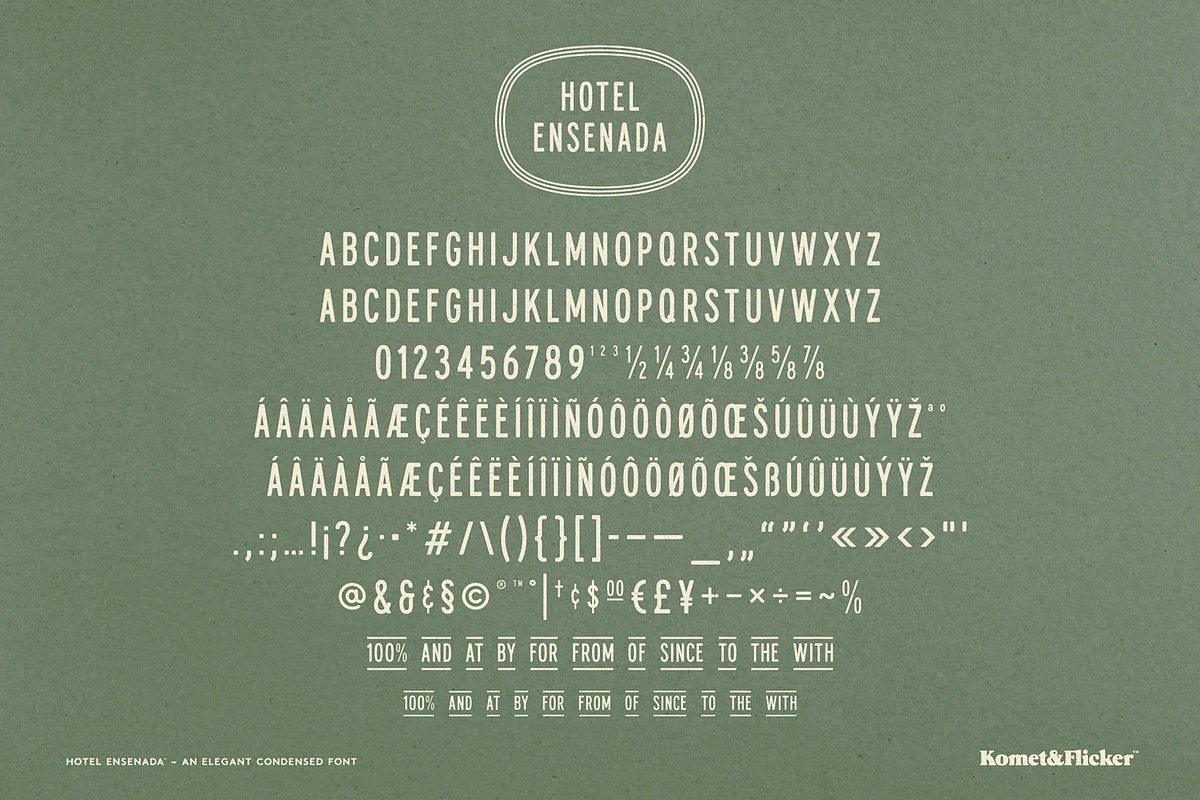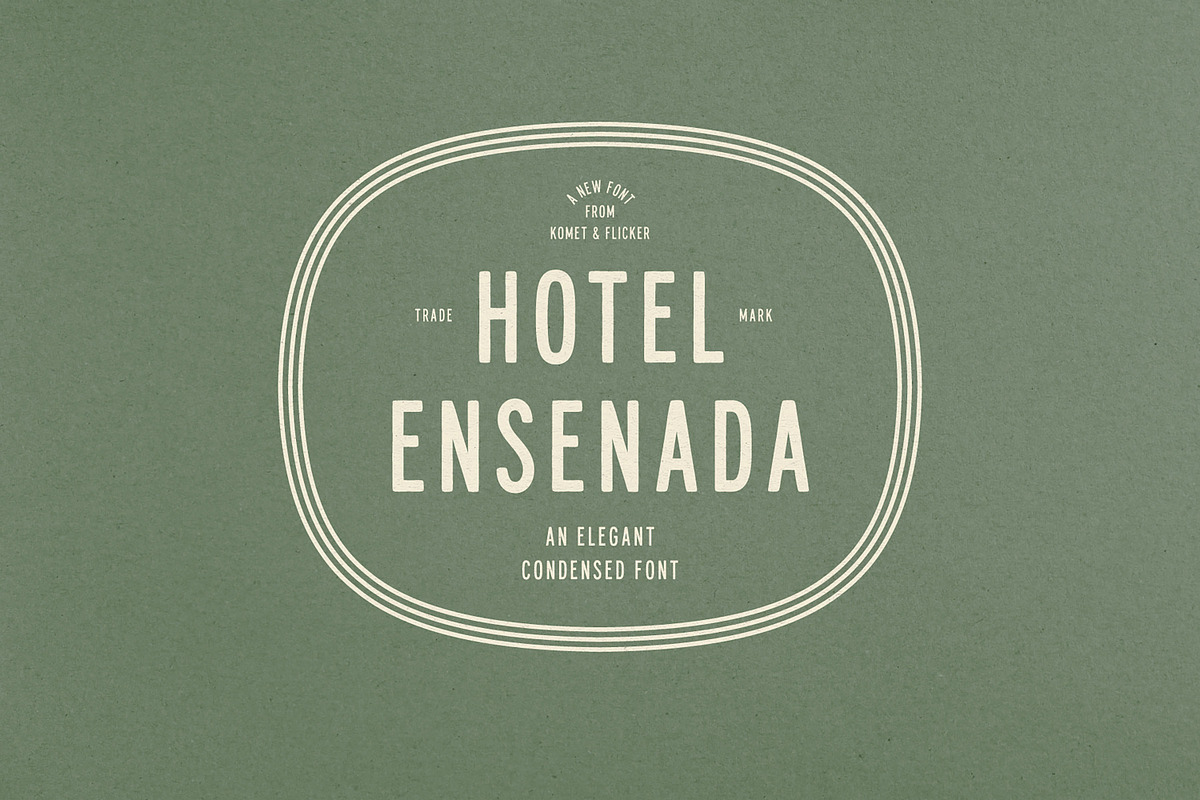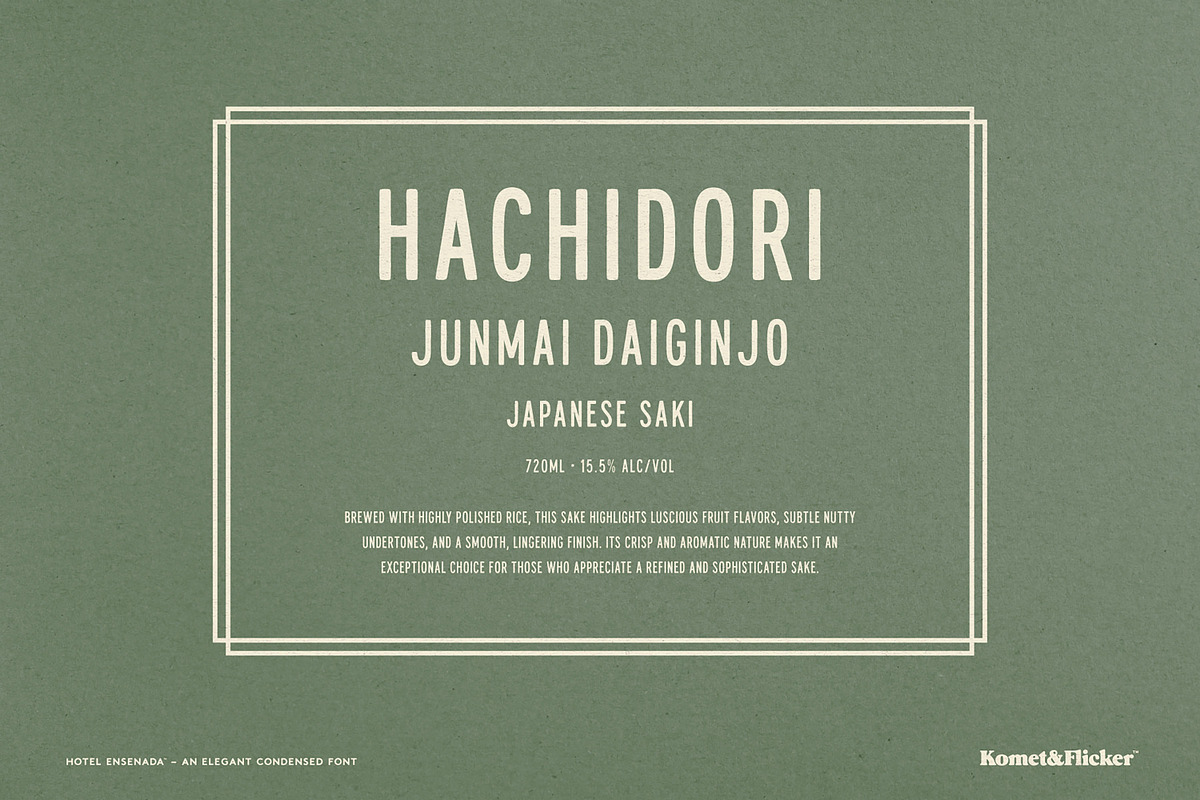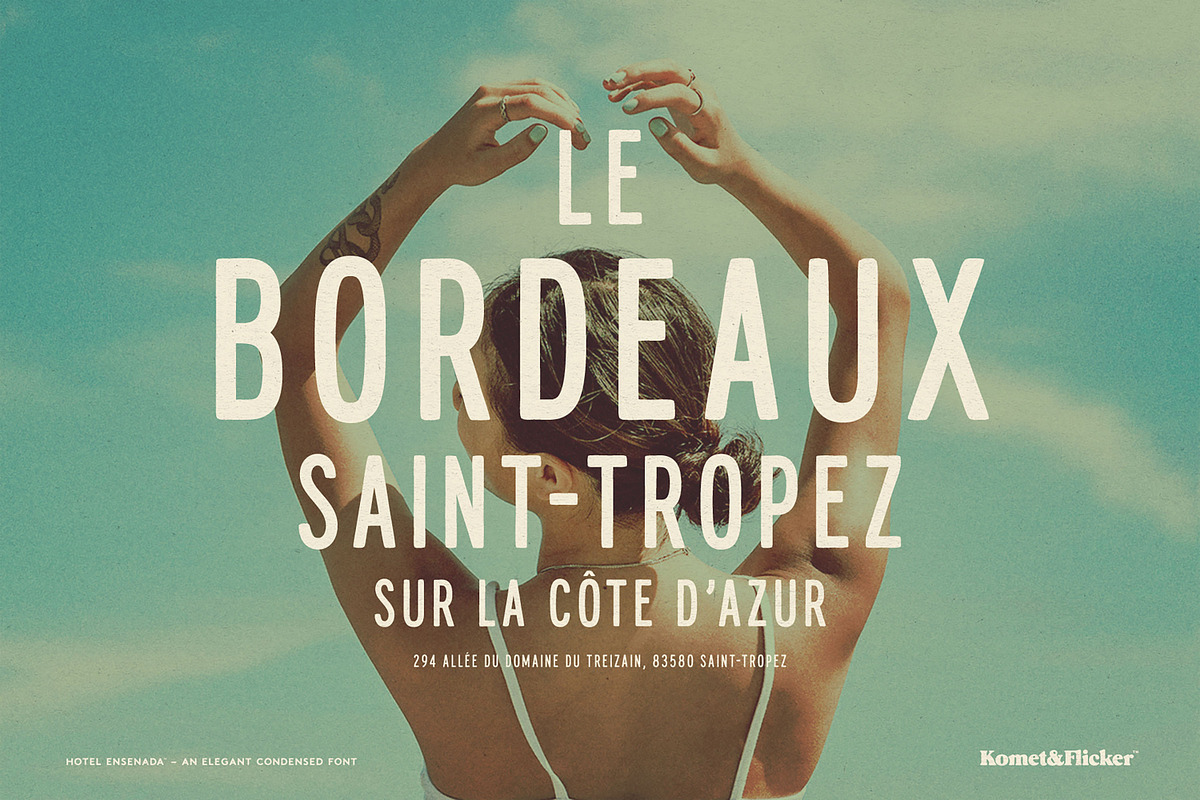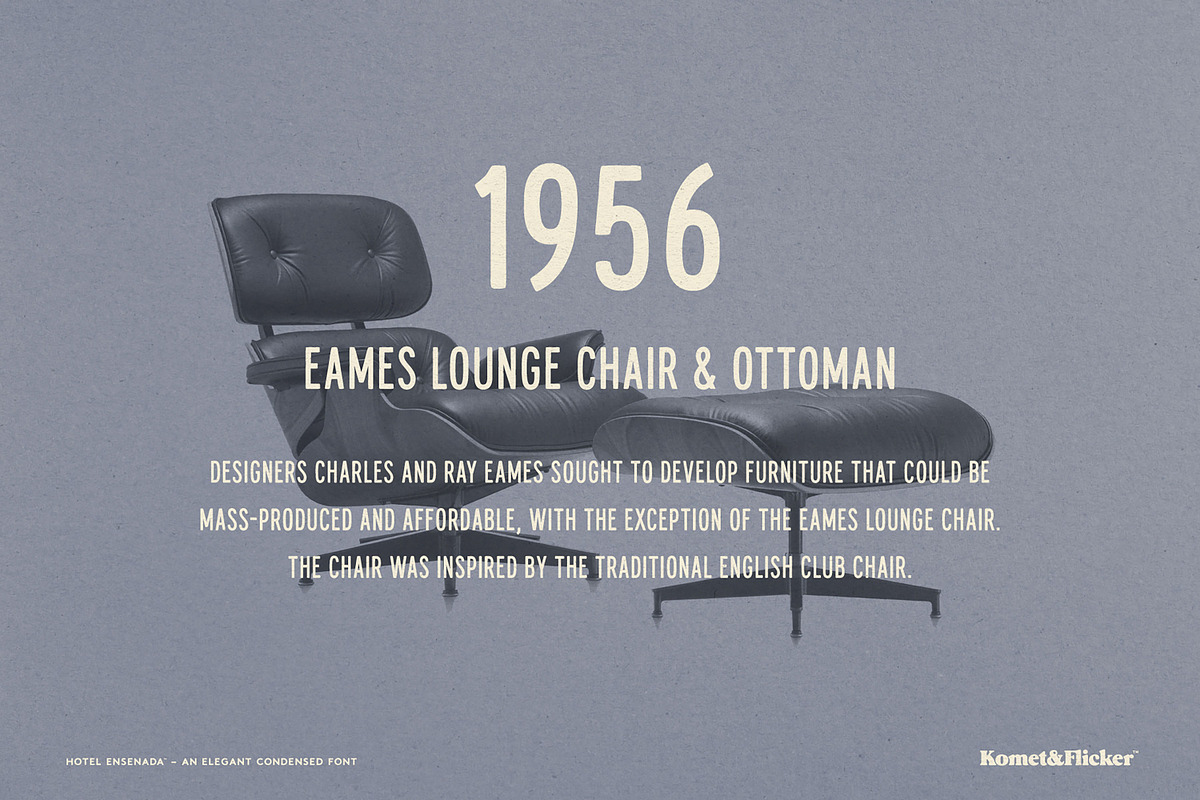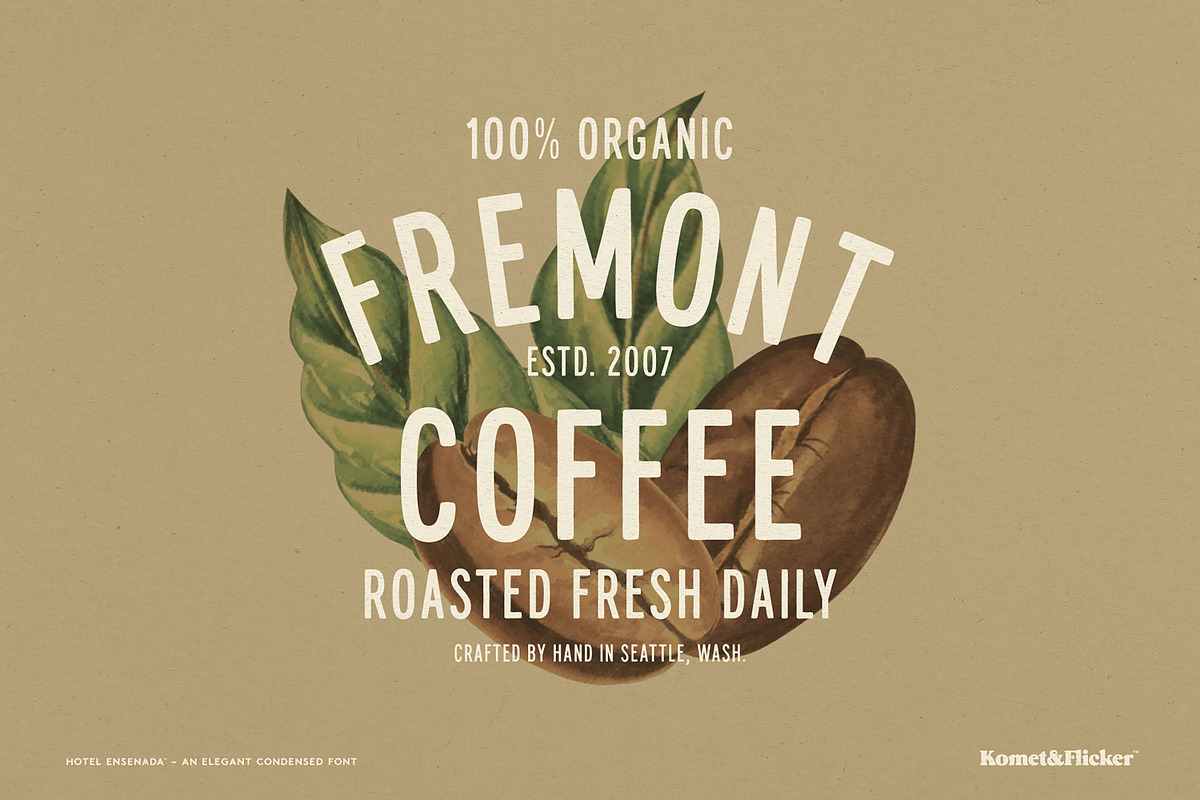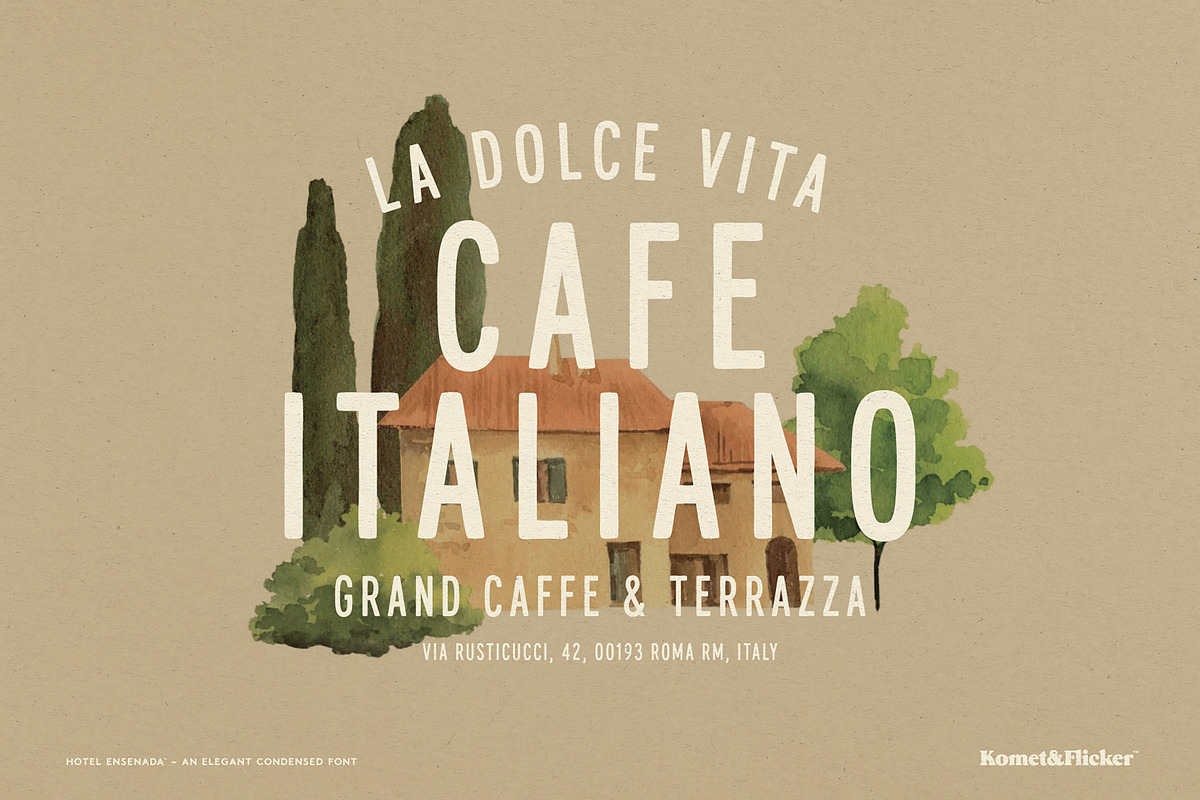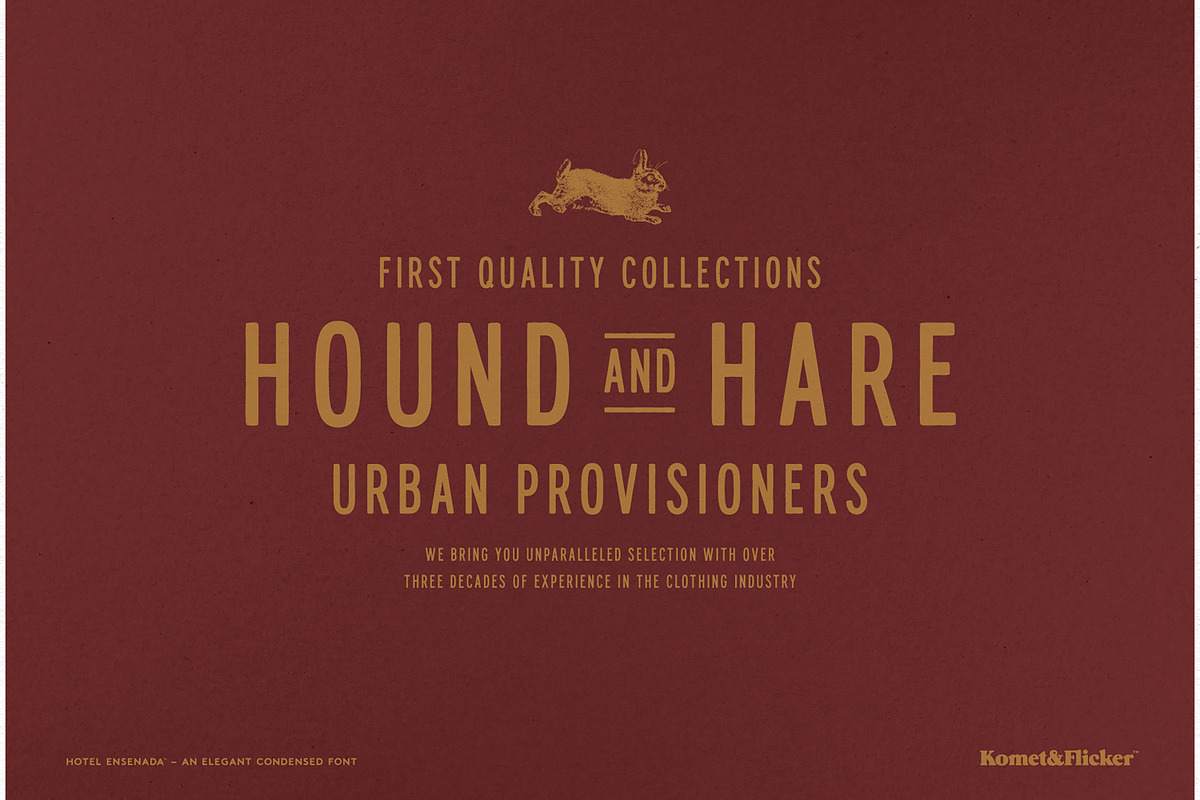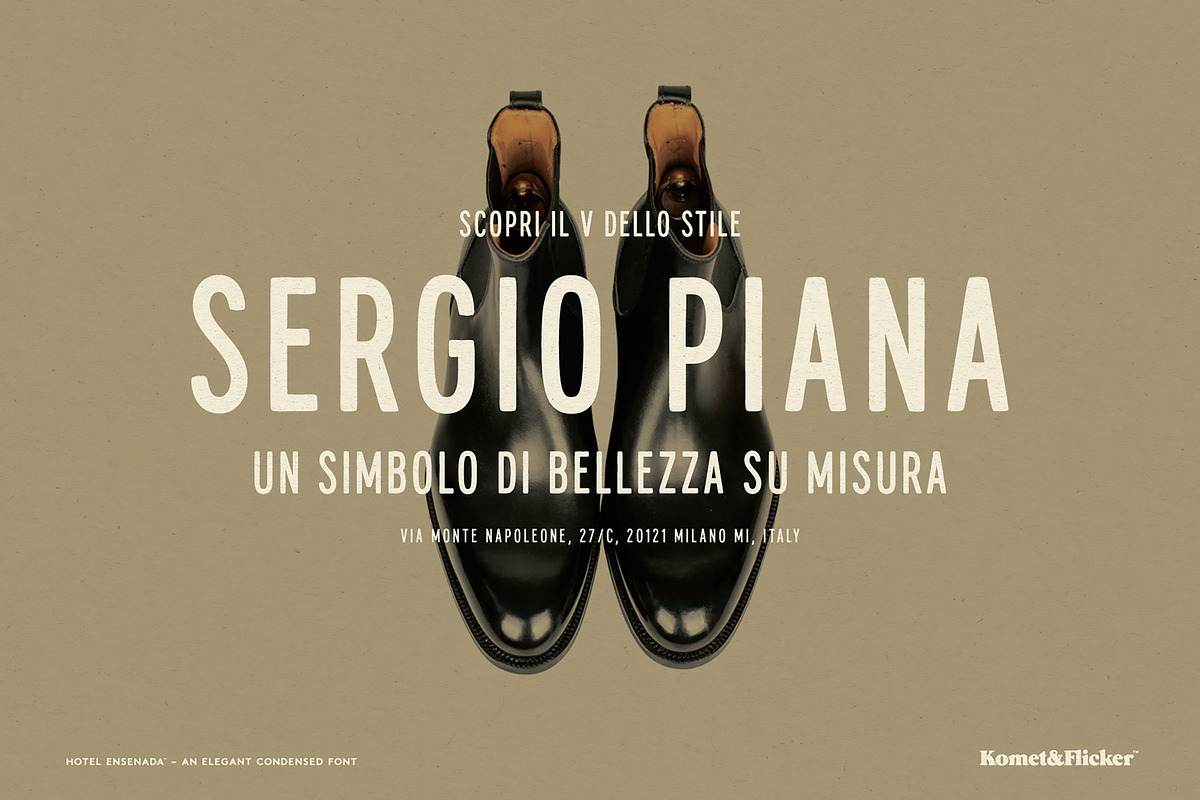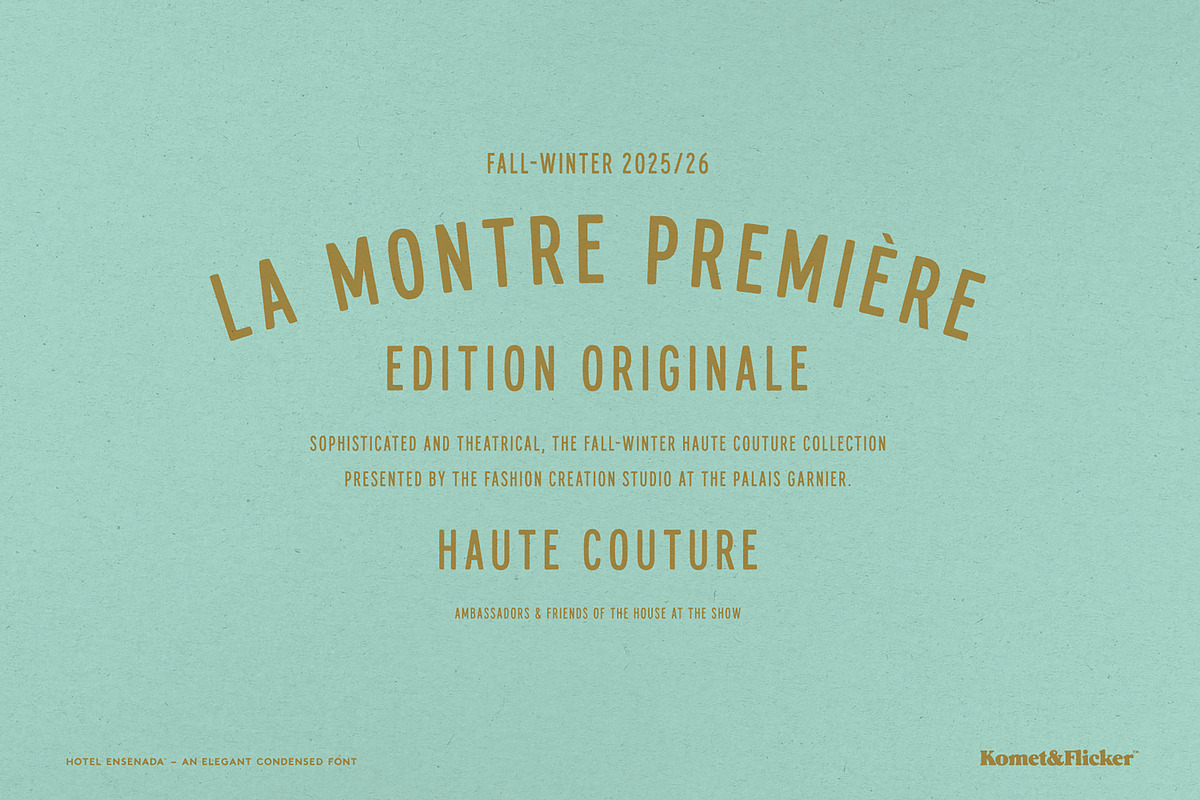
Hotel Ensenada
Hotel Ensenada is an elegant, condensed, all-caps hand-drawn font inspired by the timeless charm of coastal signage and boutique hotel lettering. With its tall, refined proportions and carefully crafted strokes, it brings a sense of effortless sophistication and warmth to any design.
Each letterform is drawn by hand, giving the typeface a natural rhythm and subtle organic character while maintaining a polished, upscale feel. The condensed structure makes it perfect for logos, packaging, editorial headlines, branding, and signage where space is limited but impact is essential.
Hotel Ensenada also includes a distinctive set of 11 custom connecting word glyphs in two styles, allowing you to seamlessly link words with graceful, flowing connectors. These special glyphs add movement, personality, and a bespoke touch, ideal for creating memorable wordmarks and elevated typographic compositions.
Refined yet expressive, Hotel Ensenada captures the romance of hand-lettered design with the versatility modern projects demand.